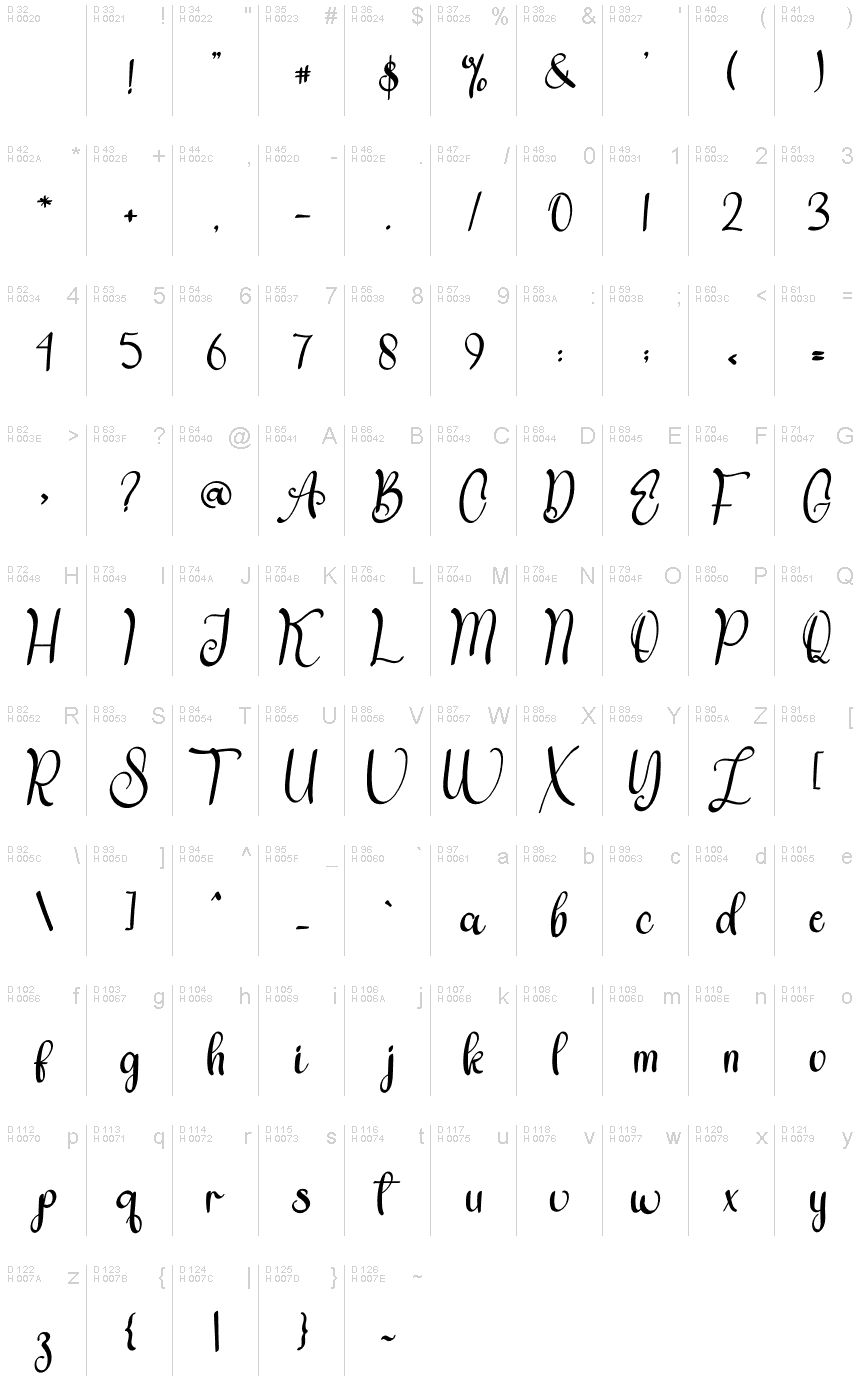
Blackids
Blackids, the delightful creation by FreshtypeINK, is a lovely handwritten font that adds a touch of whimsy to any project.
Its organic flow and charming imperfections make it perfect for wedding invitations, greeting cards, and personal blogs. The semi-bold font style adds a modern twist to traditional designs, making it ideal for fashion magazines and trendy branding projects. With its slightly condensed width, Blackids is also well-suited for packaging designs and product labels that require a playful yet legible typeface.